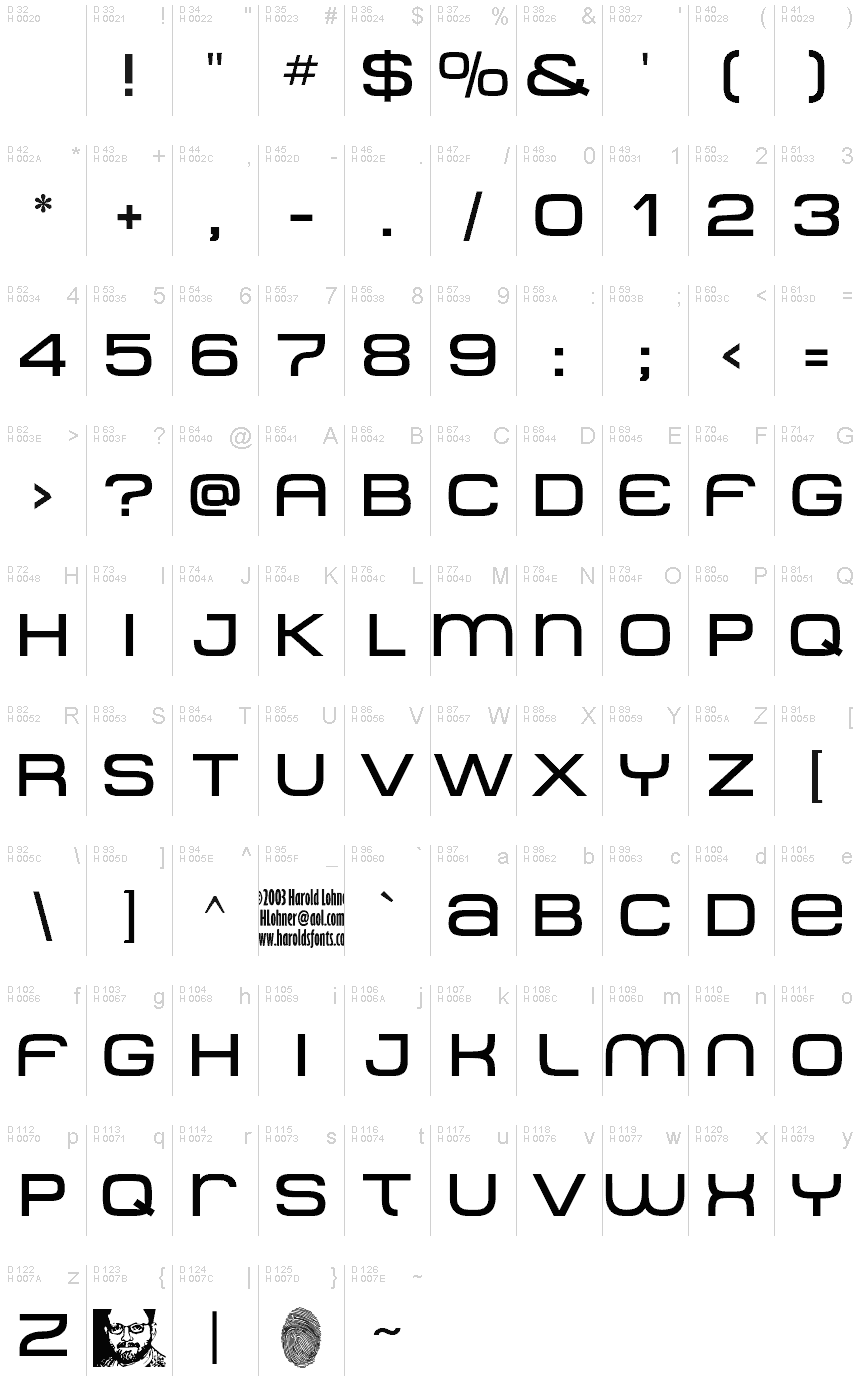
MetroDF
MetroDF is a bold, expanded techno-inspired font that commands attention. Its geometric forms and striking negative space exude a distinct industrial aesthetic, lending themselves well to impactful headings, logos, and display text. The font's expanded width creates a sense of visual power, while its clean lines and sharp edges convey a sleek, modern sensibility.
MetroDF's versatility shines in applications ranging from product packaging and advertising to editorial design and branding, where its unique character can make a lasting visual impact.